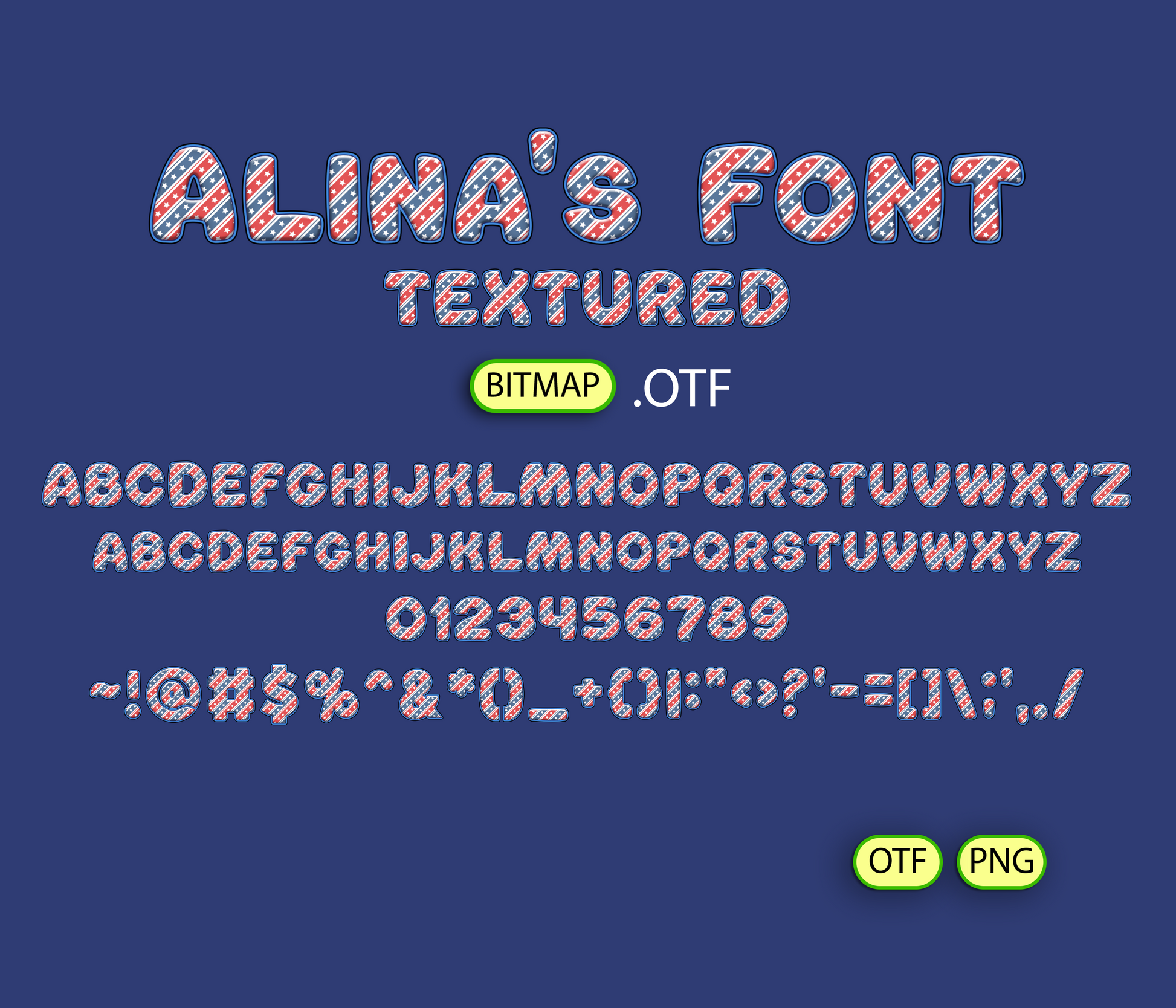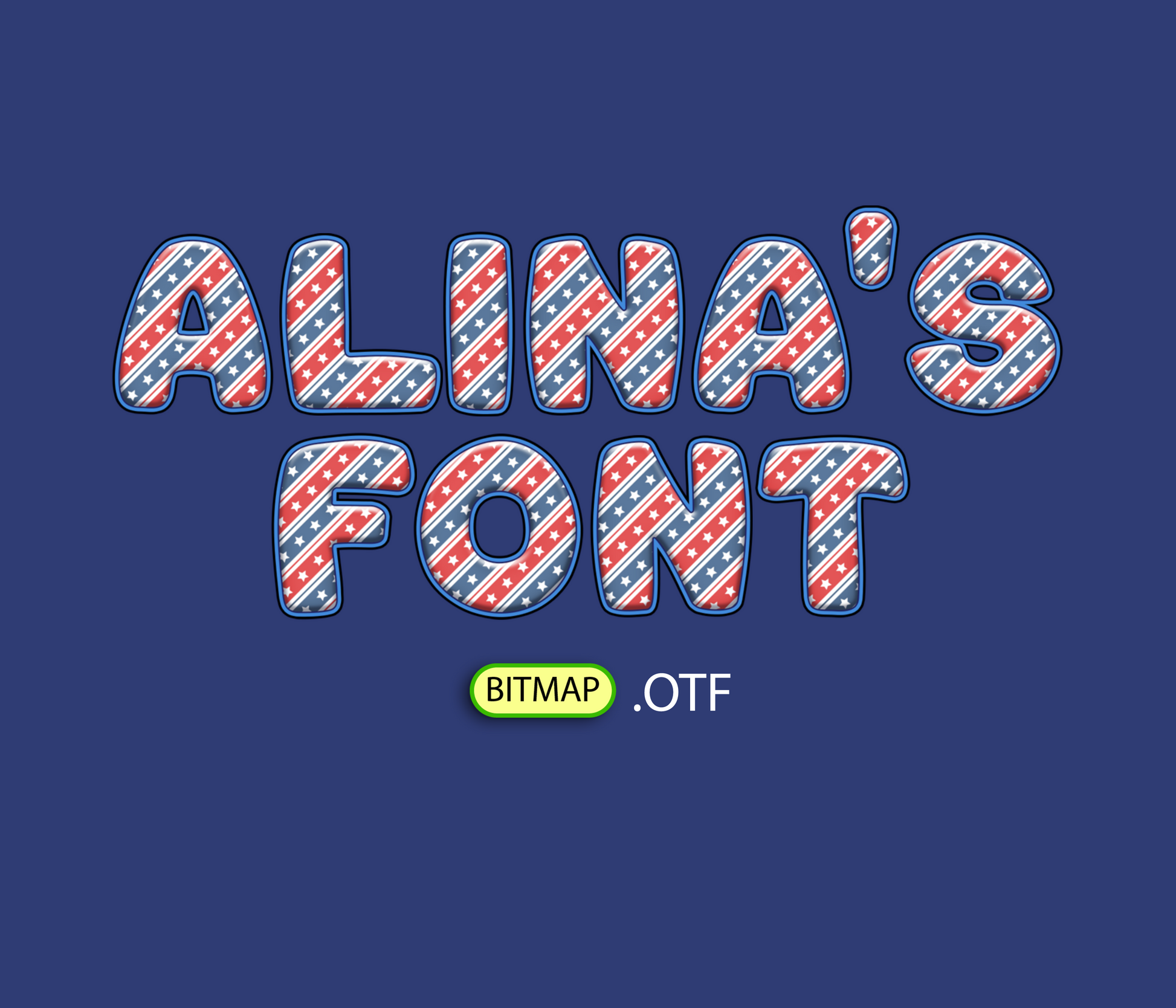
Stars and Stripes Decorative Font Textured Liberty Design
Immerse yourself in the festive atmosphere of American heritage with our Stars and Stripes Decorative font, embodying the spirit of freedom celebrations and national unity. Perfect for festival organizers, event coordinators, Americana enthusiasts, and design professionals, this font delivers the triumphant, proud essence of red, white, and blue festivities to your creative works. Craft striking announcements, liberty-themed products, or multimedia content with the dynamic, ceremonial flair of summer patriotic celebrations.
Our Stars and Stripes Decorative font showcases commanding, flag-inspired elements and ceremonial letterforms reflecting the timeless yet vibrant aesthetic of American summer traditions. Ideal for:
- Festival Planning: Design captivating announcements, signage, and promotional materials for outdoor celebrations, community picnics, and firework spectacles
- Heritage Branding: Excellent for commemorative publications, veteran tributes, and liberty-themed merchandise that honors American values
- Online Presence: Transform digital platforms, content sites, and social networks with bold typography and visuals that radiate patriotic energy
- Community Events: Enhance parade materials, civic presentations, and promotional content for neighborhood celebrations
- Creative Crafting: Add ceremonial touch to memory books, handmade decorations, and residential displays inspired by constitutional heritage
Many seek an online font generator to mimic the look of the Stars and Stripes Decorative Font. Steer clear! No generator can match the quality of our font, which comes in two versions: a textured colored font and a simple version, perfect for cutting machines.